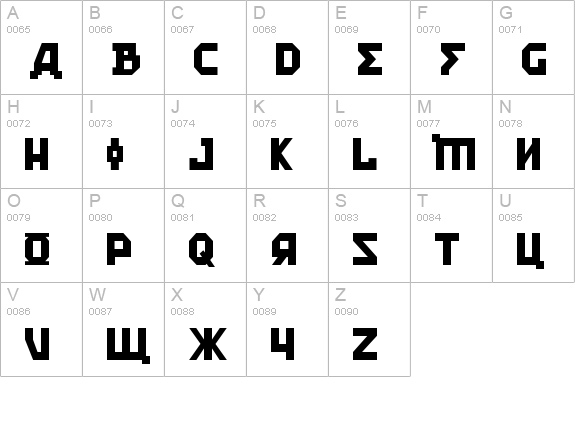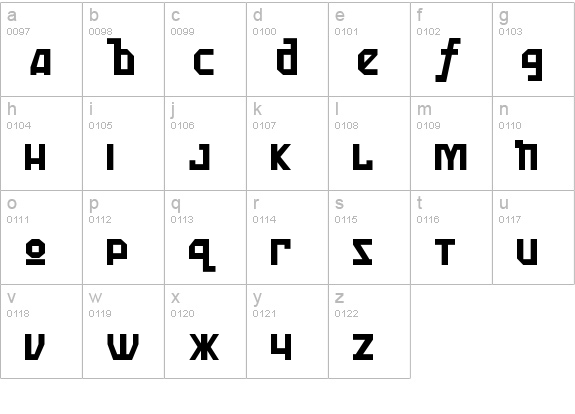
Kremlin Kommisar Font Details
Introducing the extraordinary Kremlin Kommisar font - a true masterpiece that combines elegance, sophistication, and a touch of boldness. This font is a true representation of timeless beauty, making it perfect for a wide range of design projects. Kremlin Kommisar font exudes an air of authority, capturing the essence of its namesake - the prestigious Kremlin. Its carefully crafted strokes and exquisite details make it a standout choice for any typographic endeavor, whether it's a logo, headline, or even a poster. This font will instantly elevate your designs, giving them a sense of gravitas and professionalism. Not only does Kremlin Kommisar font excel in its aesthetic appeal, but it also offers unparalleled readability. Each character is meticulously designed to ensure legibility, even at smaller sizes. This versatility allows you to use it in a variety of contexts, from print to digital media, without compromising on clarity. The best part? Kremlin Kommisar font is freely available for download at FontsMarket.com. Yes, you read that right - this exceptional font can be yours without having to spend a dime. Simply head over to FontsMarket.com and start exploring the vast possibilities that Kremlin Kommisar font has to offer. Whether you're a seasoned designer looking to add a touch of elegance to your projects or a novice looking to make a bold statement, Kremlin Kommisar font is the perfect companion. With its timeless appeal, impeccable craftsmanship, and the convenience of being freely accessible, this font is a must-have for every typographic enthusiast. Elevate your designs and download Kremlin Kommisar font today at FontsMarket.com!